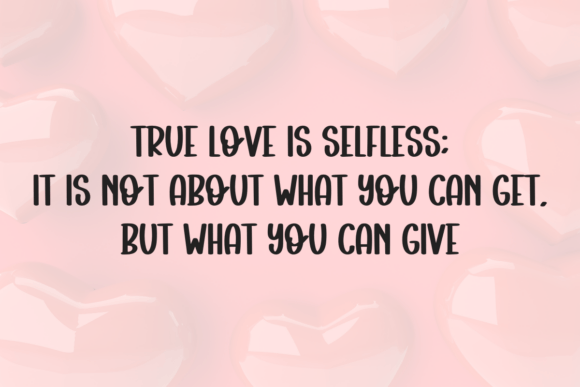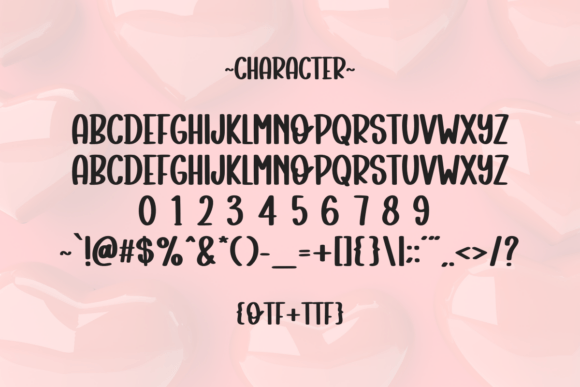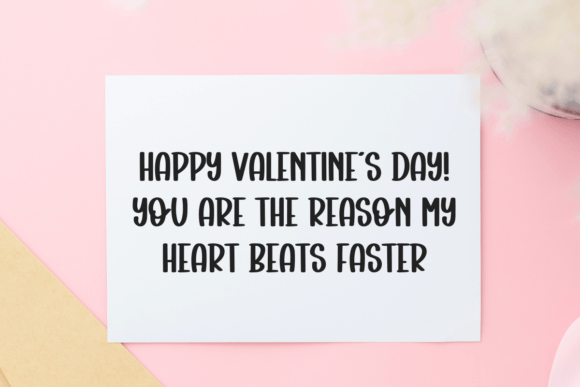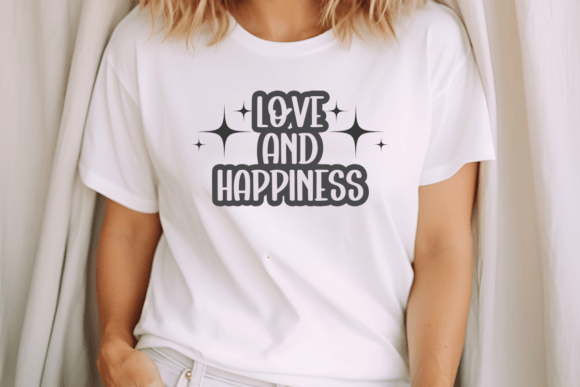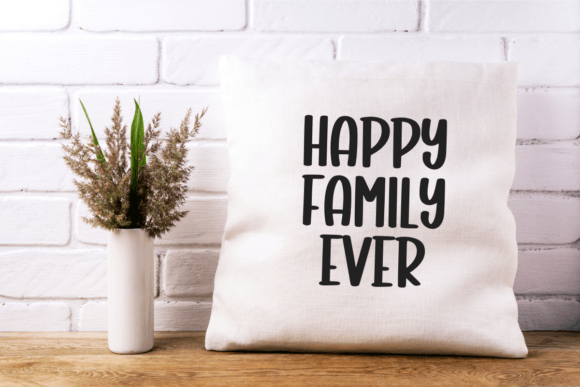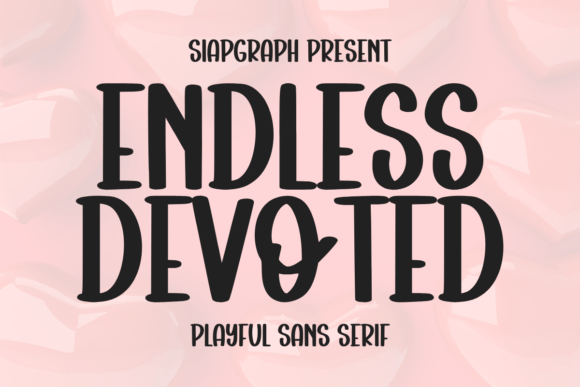
Discover the Charm of Endless Devotion Font: Elevate Your Creative Projects
Are you on the hunt for a font that adds a touch of playfulness and charm to your creative projects? Look no further than the Endless Devotion Font. This delightful sans-serif font is designed to bring a lively and whimsical feel to a wide range of applications, from journals and planners to Cricut designs and women’s clothing. In this article, we’ll dive into the features and benefits of the Endless Devotion Font, and explore how it can become a valuable addition to your font library.
The Characteristics of Endless Devotion Font
Endless Devotion Font is a fun and playful sans-serif font that boasts a cute and charming style. Its natural strokes and touches give it a unique, hand-crafted feel that’s perfect for designers and crafters looking to add a personal touch to their work. The font’s lively and whimsical feel makes it an excellent choice for projects that require a bit of personality and flair.
Perfect for a Variety of Creative Projects
One of the standout features of Endless Devotion Font is its versatility. This font is suitable for a wide range of creative projects, including:
• Journals and notebooks: Add a touch of whimsy to your journal pages or notebook covers with Endless Devotion Font.
• KDP projects: Create eye-catching book covers, titles, and headings for your Kindle Direct Publishing (KDP) projects.
• Planners and teaching materials: Use Endless Devotion Font to add visual interest to your planners, lesson plans, and teaching materials.
• Cricut designs and silhouettes: Cut out fun and playful designs for your Cricut projects, from paper crafts to vinyl decals.
• Sublimation and key chains: Create custom sublimation designs and key chains with a personal touch.
• Women’s clothing and accessories: Add a playful touch to your women’s clothing and accessory designs, from t-shirts to tote bags.
Why Choose Endless Devotion Font?
So, why should you choose Endless Devotion Font for your creative projects? Here are just a few reasons:
• Unique and eye-catching: Endless Devotion Font is sure to grab attention with its playful and charming style.
• Versatile: This font is suitable for a wide range of creative projects, from digital designs to print materials.
• Easy to read: Despite its playful feel, Endless Devotion Font is easy to read, making it perfect for body text and headings.
• Adds a personal touch: The font’s hand-crafted feel adds a personal touch to your designs, making them stand out from the crowd.
Tips for Using Endless Devotion Font
To get the most out of Endless Devotion Font, here are a few tips:
• Experiment with colors: Endless Devotion Font looks great in a variety of colors, from bright and bold to soft and pastel.
• Mix and match: Combine Endless Devotion Font with other fonts to create interesting and dynamic designs.
• Play with sizes: Use Endless Devotion Font in a range of sizes to create visual interest and hierarchy in your designs.
In conclusion, Endless Devotion Font is a fun and playful sans-serif font that’s perfect for designers and crafters looking to add a touch of whimsy to their creative projects. With its natural strokes and touches, lively and charming feel, and versatility, this font is sure to become a valuable addition to your font library. Whether you’re working on journals, KDP projects, Cricut designs, or women’s clothing, Endless Devotion Font is the perfect choice. So why wait? Download Endless Devotion Font today and start elevating your creative projects!